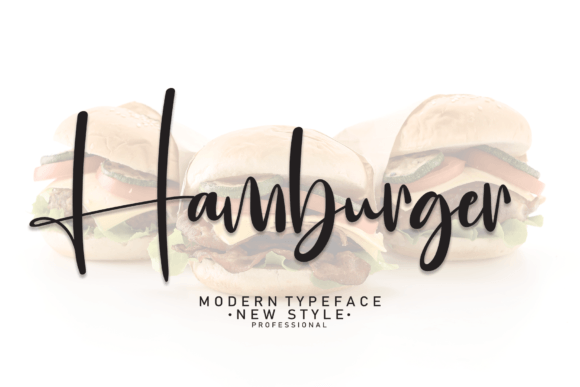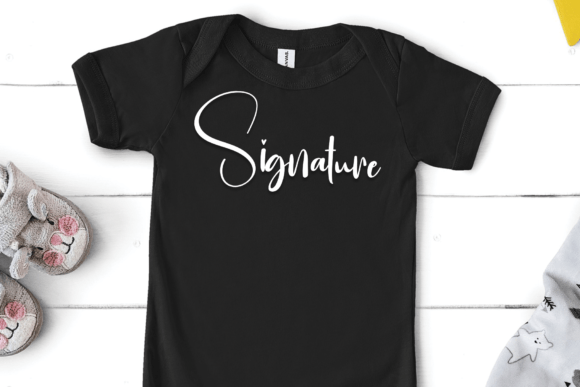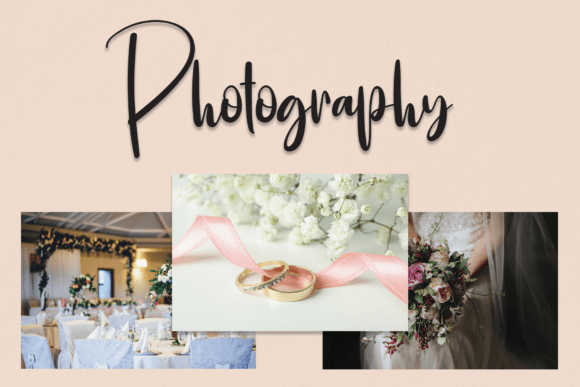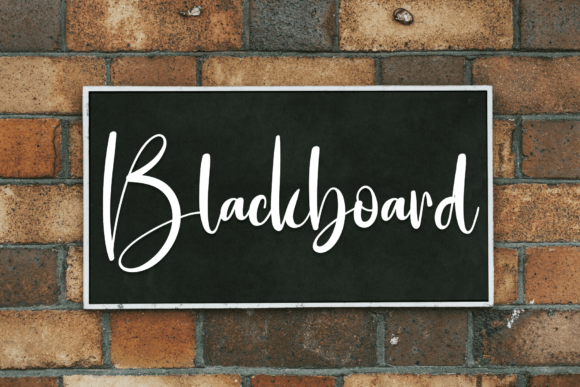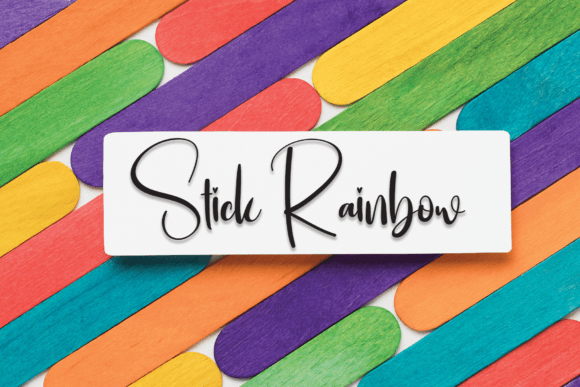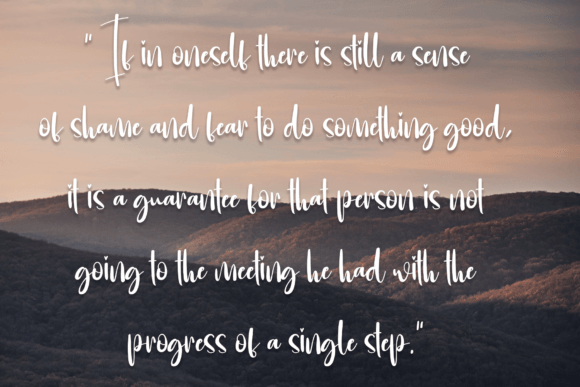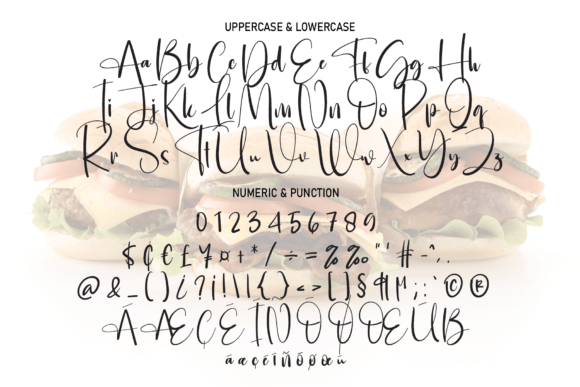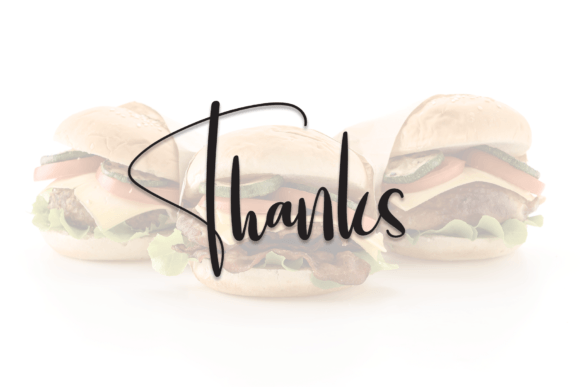
Hamburger Font
About Hamburger Font
Introducing Hamburger, a font characterized by its latest style letters, making it an ideal choice for a diverse range of creative projects. Hamburger’s versatility makes it perfect for wall displays, wedding invitations, social media post logos, advertisements, product packaging, product designs, labels, photography, watermarks, invitations, stationery, and any project that benefits from a handwritten touch.
The latest style letters of Hamburger are designed to bring a contemporary and handwritten aesthetic to your designs. Whether you’re working on eye-catching wall displays, adding a touch of charm to wedding invitations, or creating engaging social media post logos, Hamburger is crafted to enhance your projects with its personalized and stylish appeal.
Consider using Hamburger to elevate the visual impact of advertisements, product packaging, and labels. Its handwritten taste adds a unique and human touch, making your photography, watermarks, and overall branding stand out with a distinct flair.
This font is crafted to be a reliable and stylish choice, providing you with the flexibility to apply it across various design contexts. The latest style letters contribute to a modern and fresh look, ensuring that your projects are infused with the charm and character that Hamburger provides.
In essence, Hamburger is more than just a font; it’s a creative tool that brings a handwritten taste to your projects. Let it be the go-to choice for your wall displays, invitations, social media graphics, and various design applications, allowing you to achieve a personalized and stylish look in your creative endeavors.